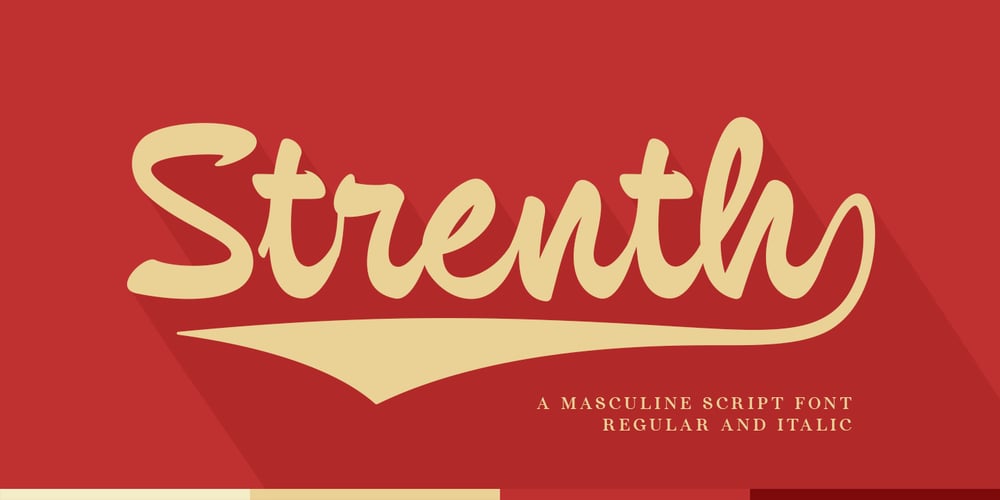
Strenth
Strenth font
Strenth Font Family was designed by Dwi Ahidian and published by Lemonthe. Strenth contains 2 styles and family package options. Strenth is a solid and dynamic script font. This font features bold strokes that flow with smooth curves, giving it a masculine yet elegant appearance. It comes with stylistic alternates and swash width variants, making it suitable for various design needs such as branding, logos, labels, packaging design, posters, and any design that requires a striking touch.